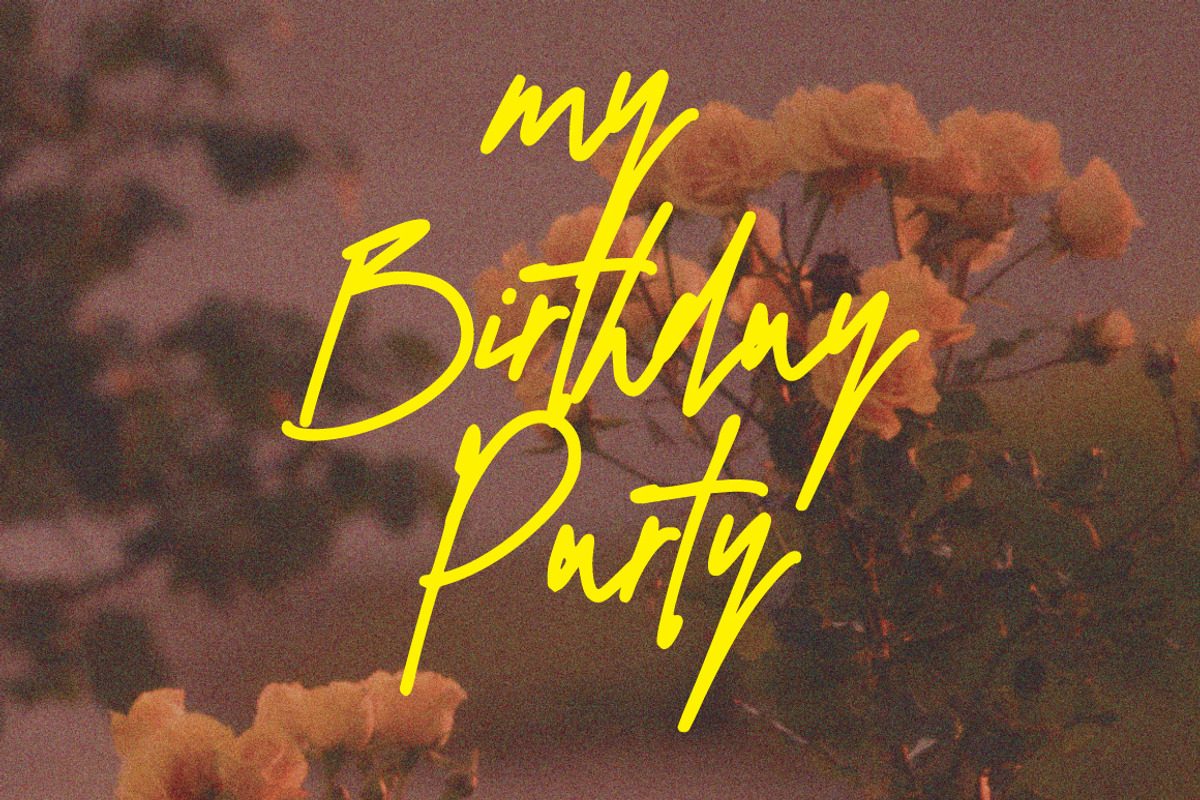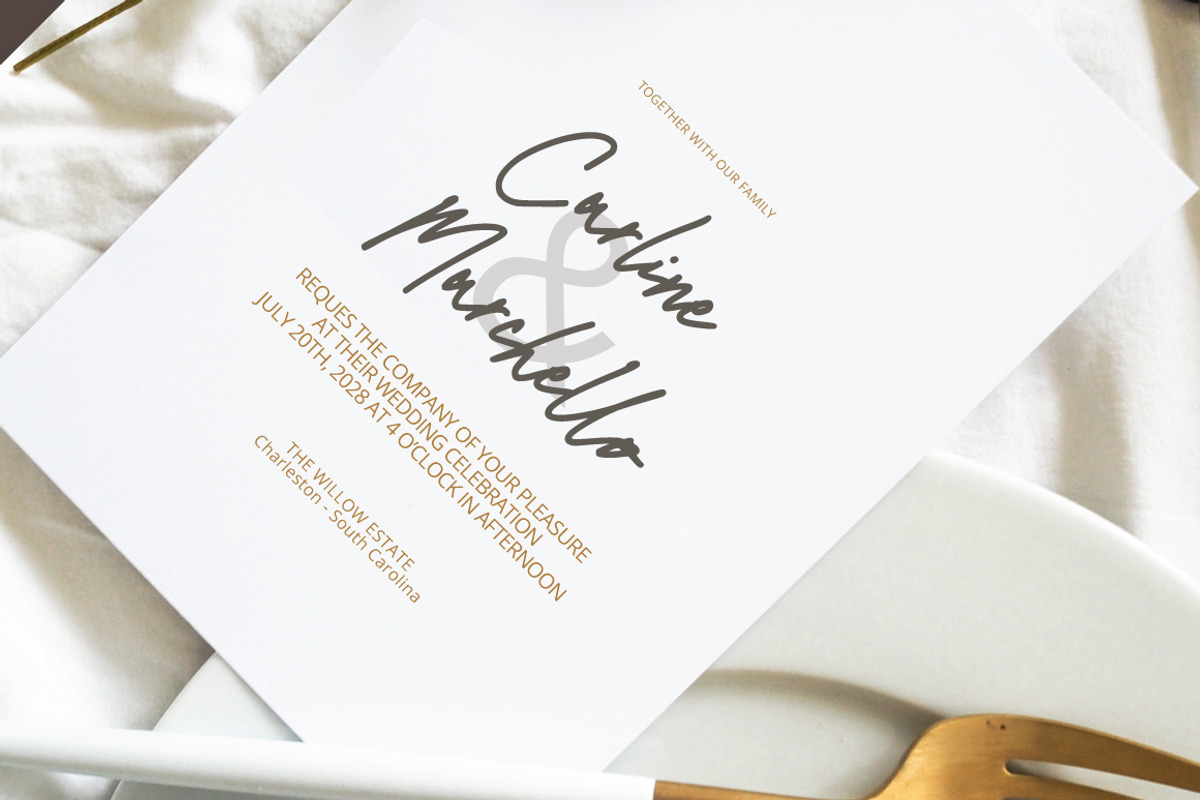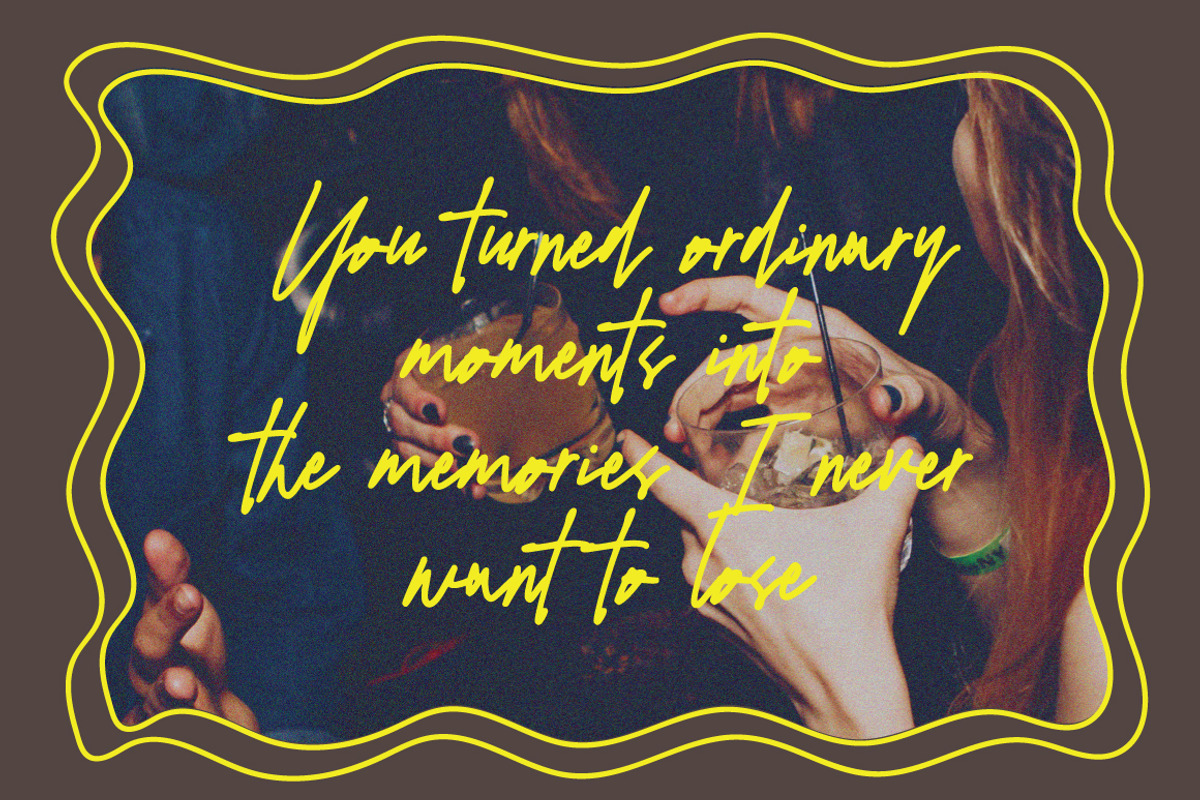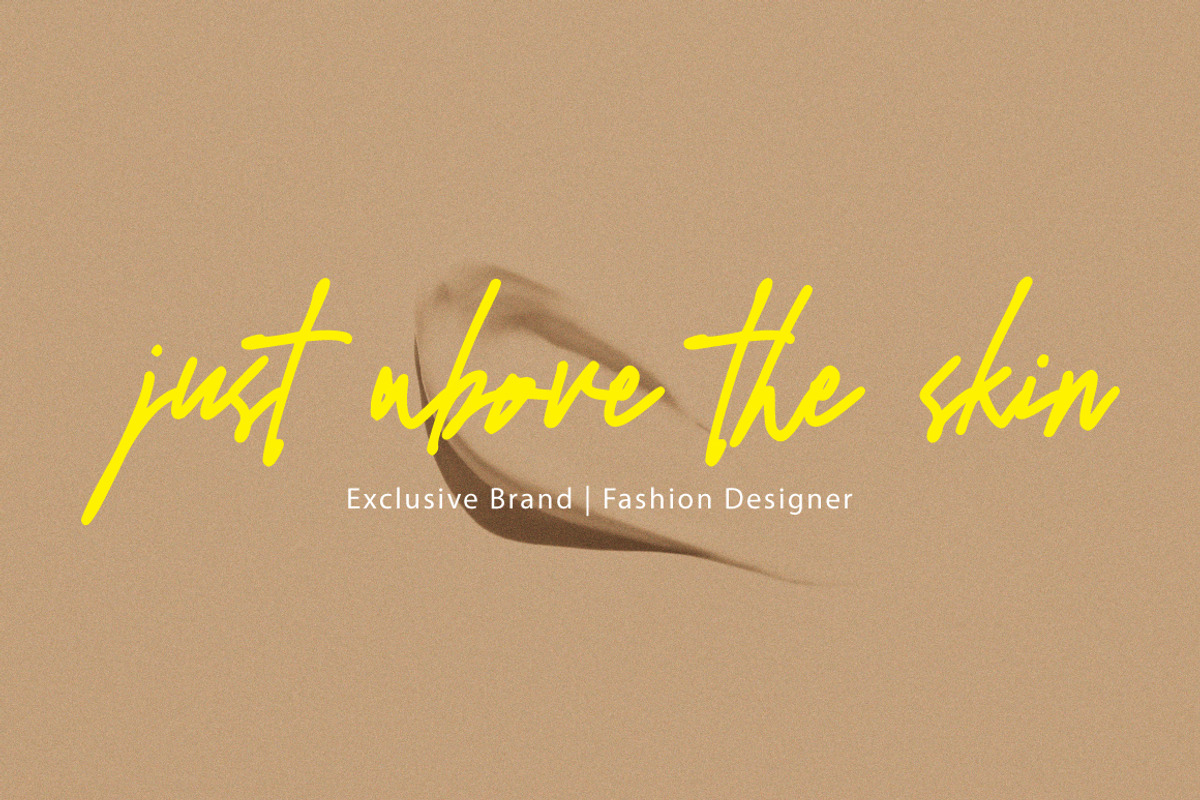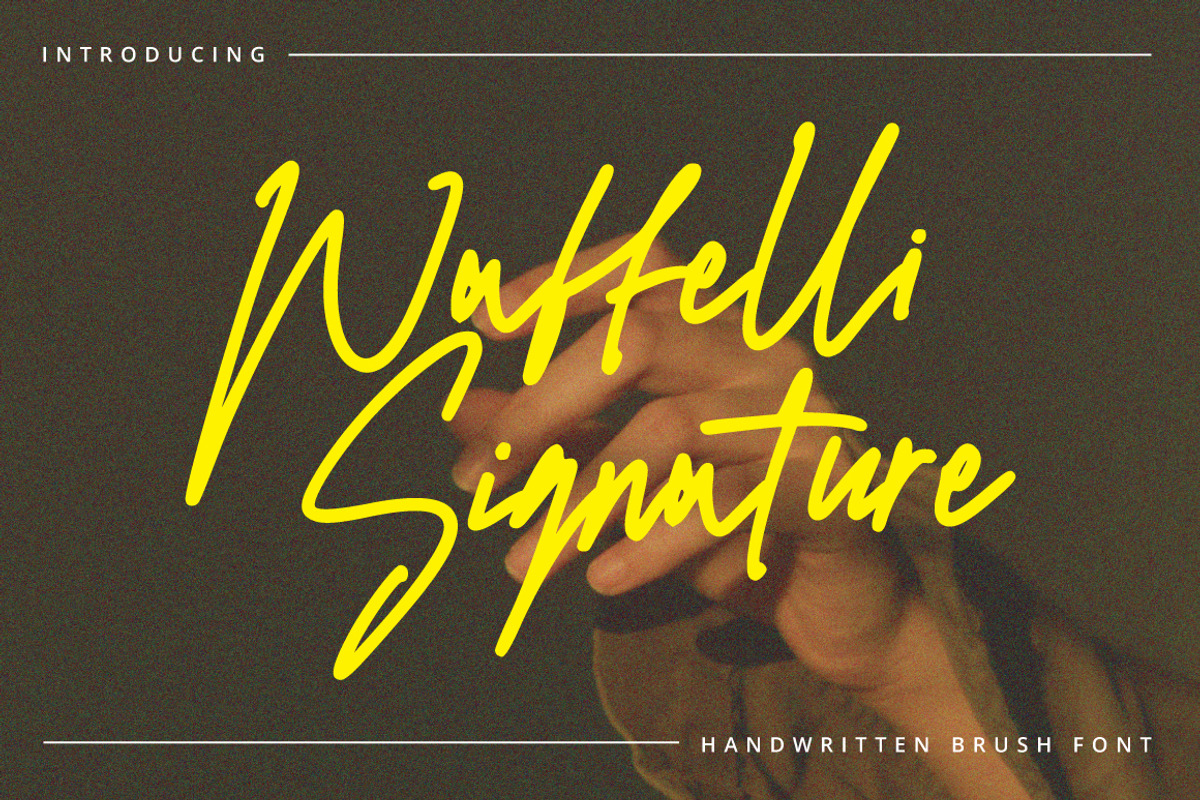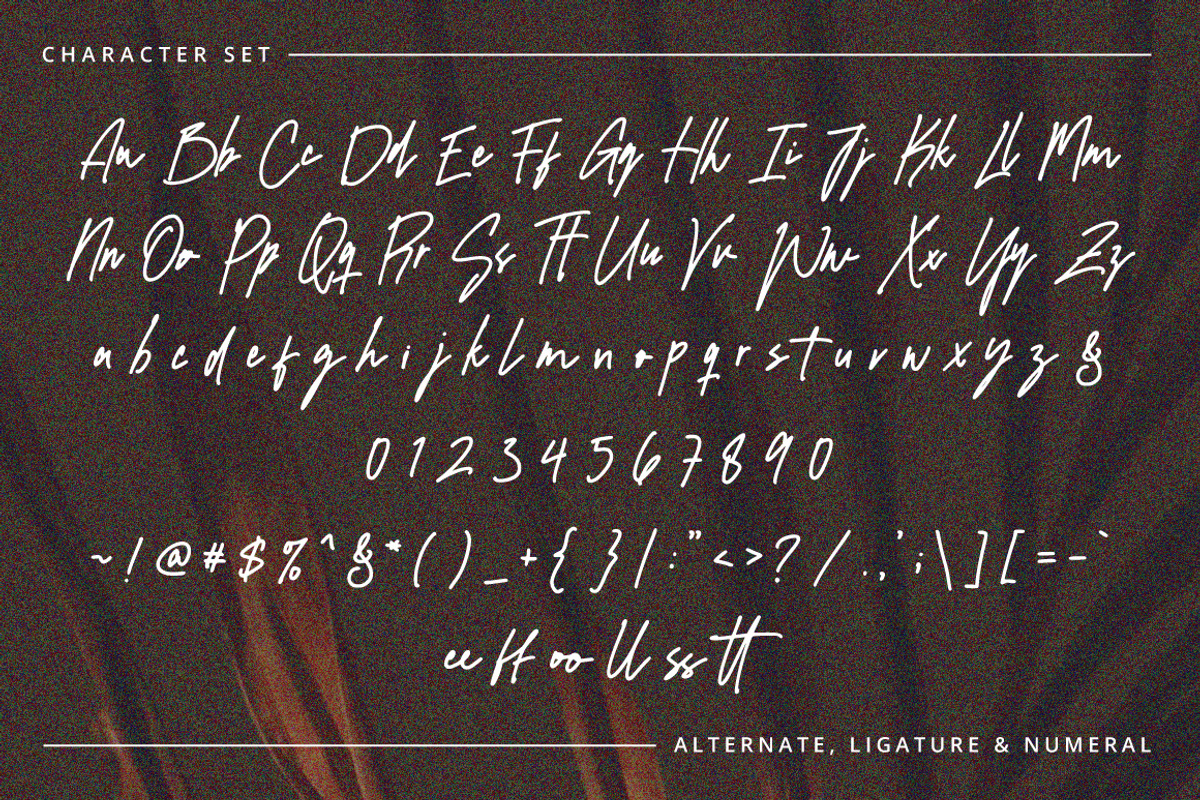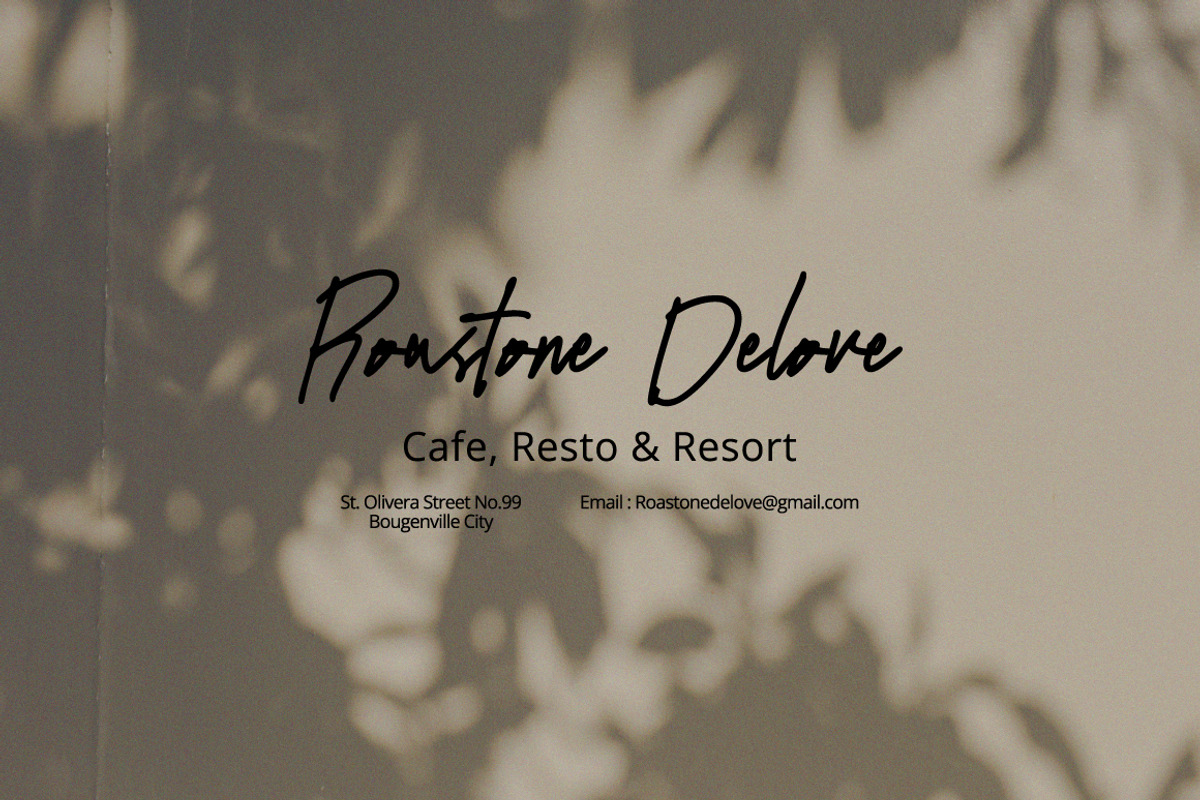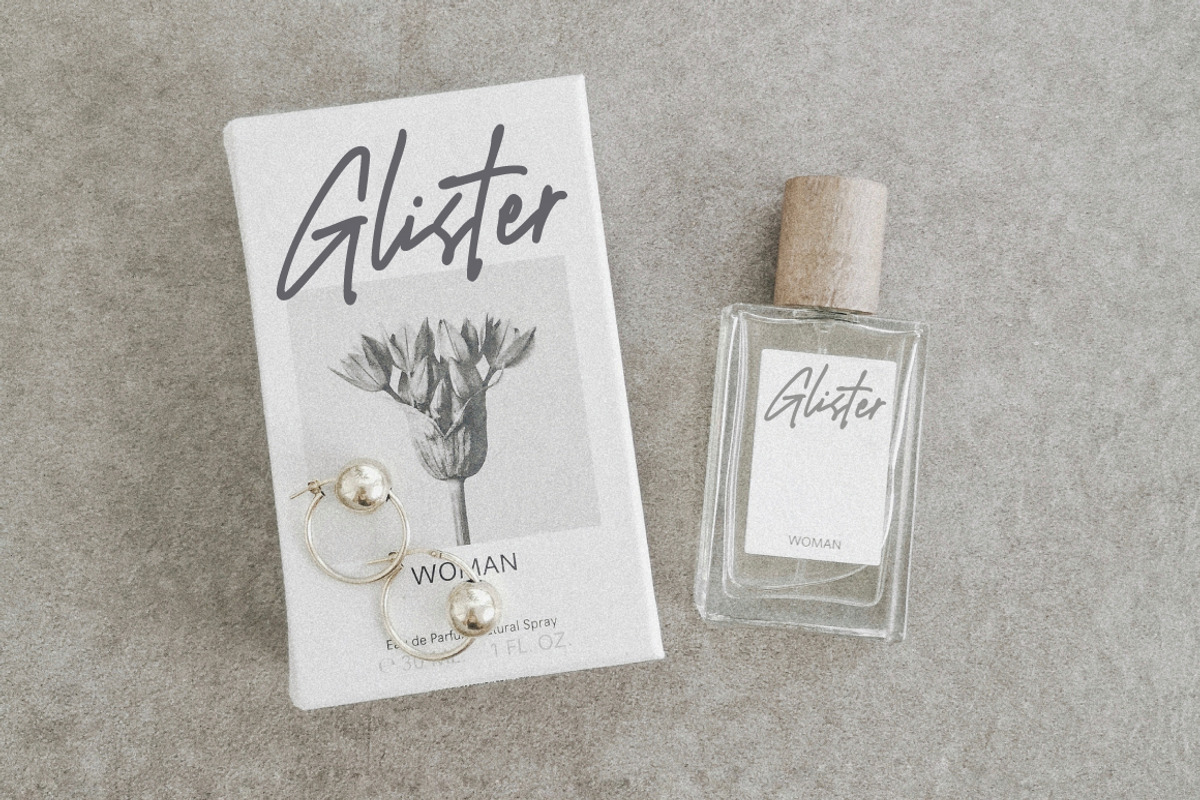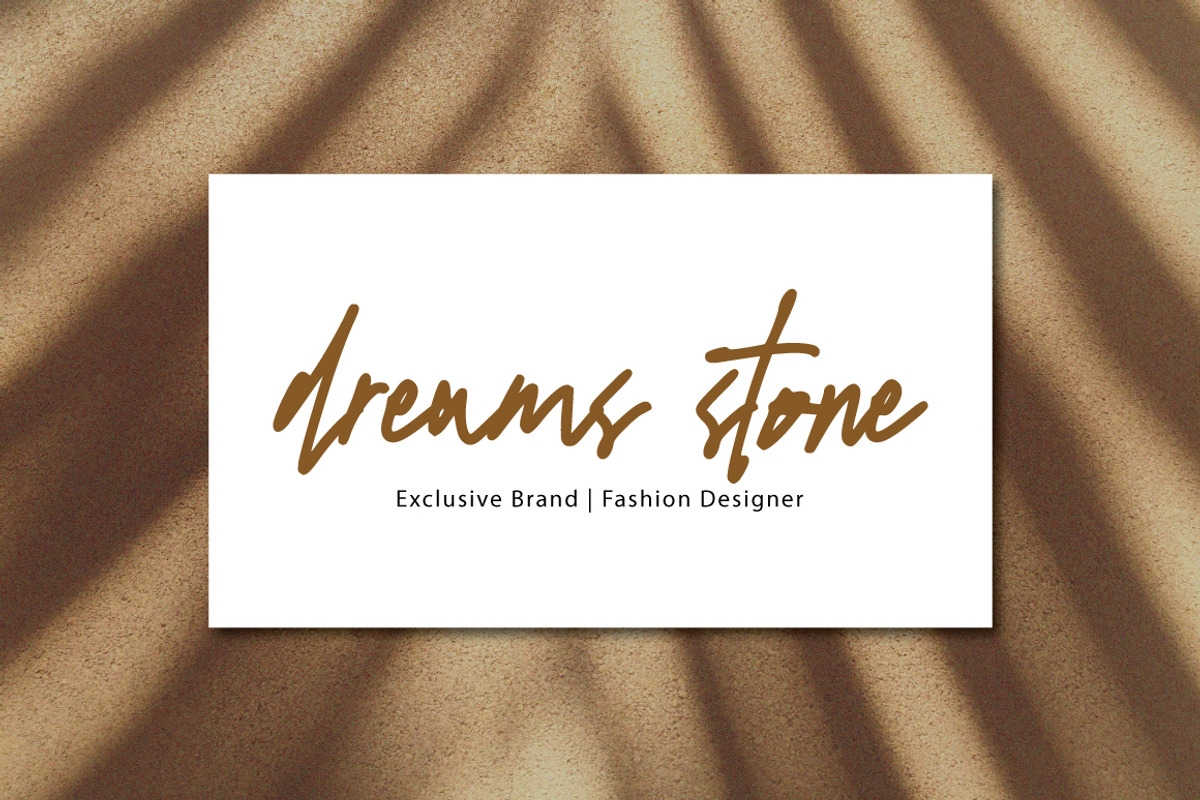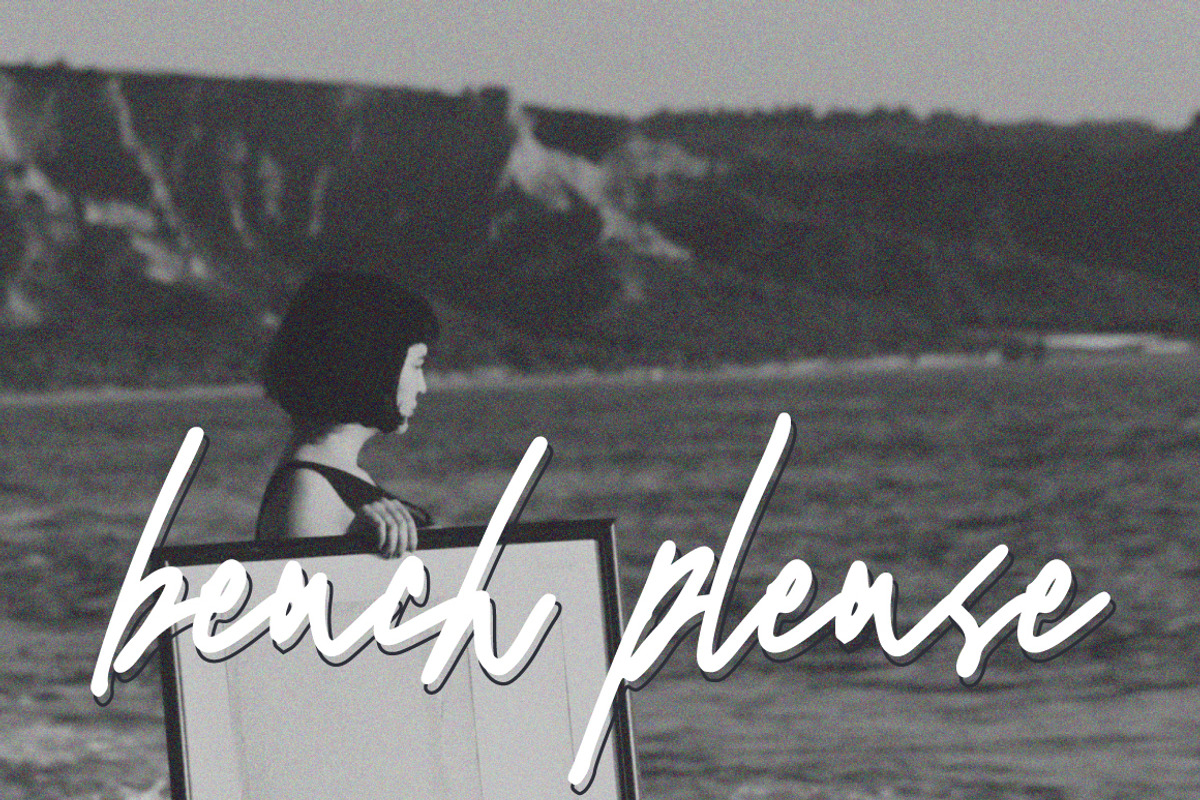
Waffelli - Monoline Signature
Waffelli Signature – Handwritten Brush Font
Elevate your design projects with Waffelli Signature, an expressive handwritten brush font crafted to bring authentic charm and effortless elegance to your work. Featuring fluid, energetic strokes and a dynamic natural flow, this typeface captures the personal touch of genuine hand lettering.
Waffelli Signature is ideal for branding, signature logos, wedding invitations, fashion layouts, quote posters, packaging, and social media graphics. Whether you need an eye-catching headline or an elegant personal logo, this font adds an artistic, modern edge.
Waffelli Signature Features :
Suitable for:
Logos & Personal Branding
Beauty Branding
Wedding Invitations
Social Media Content
Photography Watermarks
Quotes & Editorial Design
Product Labels & Luxury Branding
Waffelli Signature was created for designers, business owners, and creators who want to create a classy and memorable visual identity.